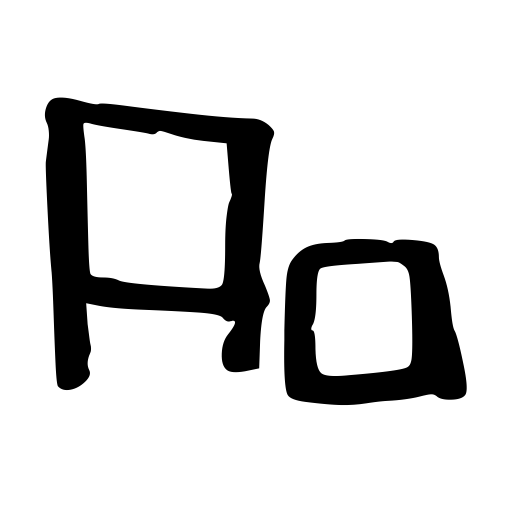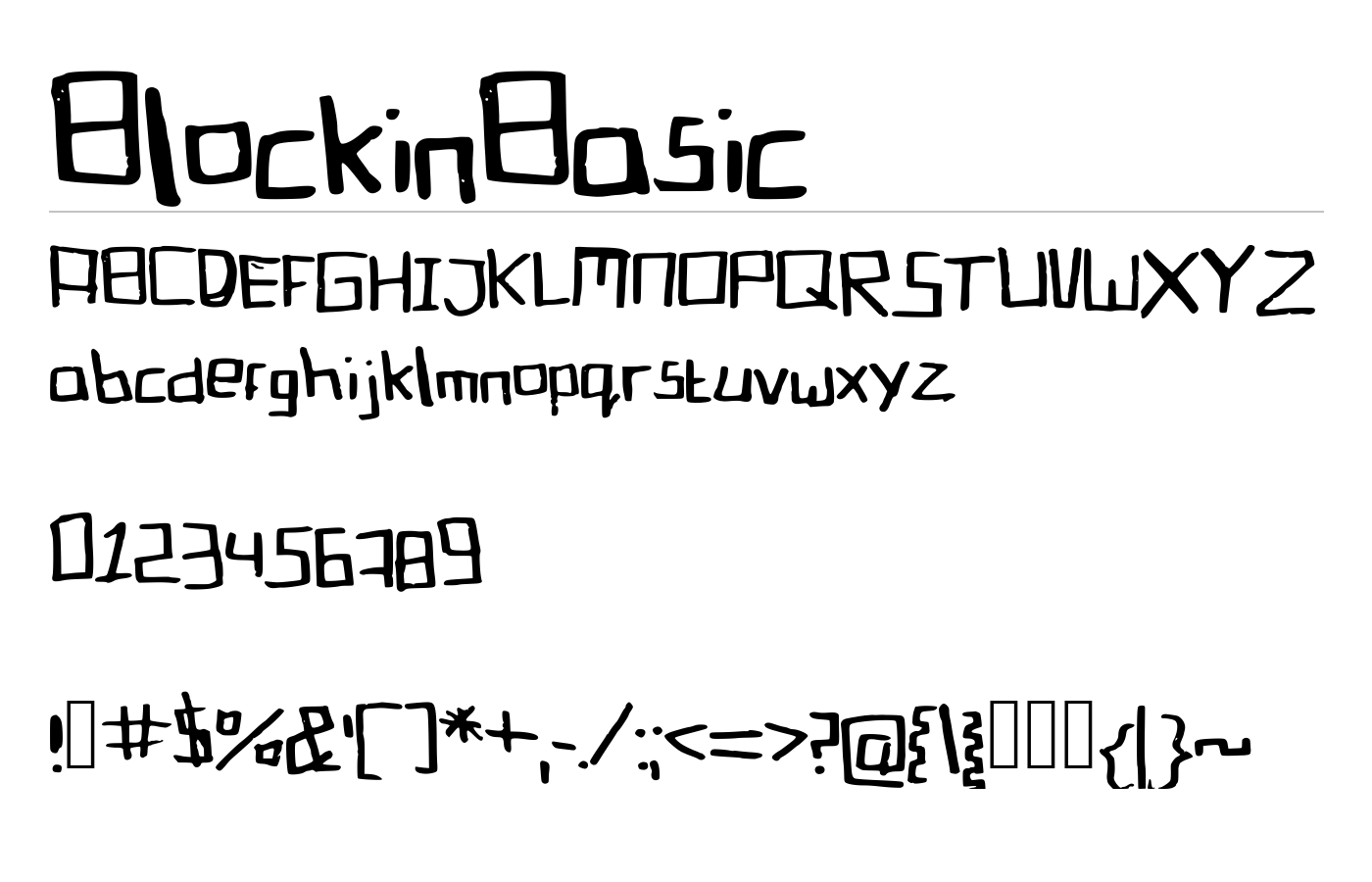
BlockinBasic is a quirky, hand-drawn sans serif font with an informal, playful vibe. Its uneven strokes and irregular shapes give it a casual, creative feel that works well for fun, artistic projects, kids’ materials, and unique branding that wants to stand out with personality. This font is best suited for headlines, posters, and designs where a distinctive, handcrafted look is desired.
BlockinBasic Font
About BlockinBasic Font